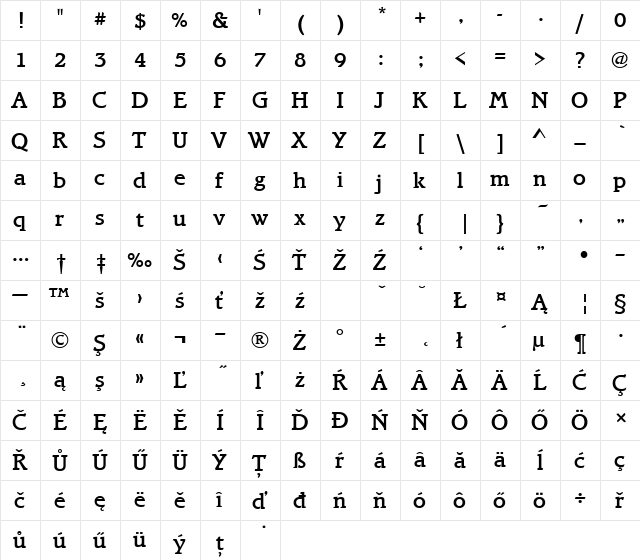
BramlTEEMed Regular
Design Context for BramlTEEMed Typeface
BramlTEEMed takes a measured approach to typography — its balanced proportions and neutral character make it a reliable workhorse for both digital and print work.